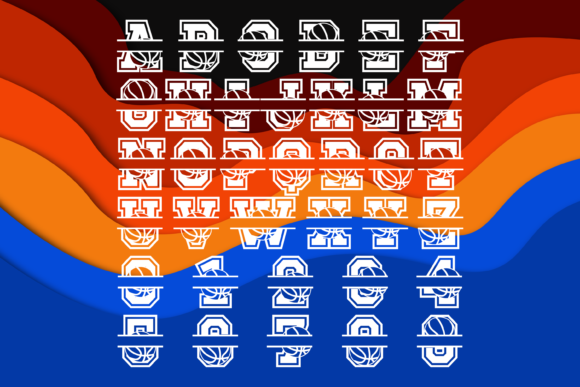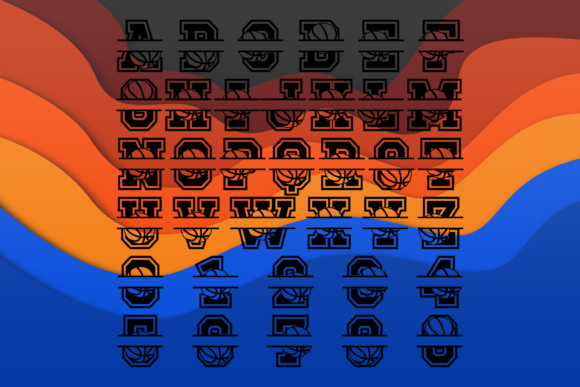
Dunk Font: Elevate Your Sports Designs with a Slam Dunk
Are you a designer or crafter looking for a font that packs a punch? Look no further than the Dunk font. This incredibly cool font is ideal for sports-related design ideas, and its simplicity combined with a strong visual effect makes it a game-changer for any creation.
The Power of Dunk Font
Dunk font is more than just a font – it’s a statement. Its bold and dynamic design instantly grabs attention, making it perfect for sports-themed designs, logos, and branding materials. Whether you’re working on a project for a sports team, a fitness brand, or an athletic event, Dunk font is sure to make your design stand out from the crowd.
What Makes Dunk Font So Special?
- Simple yet Impactful: Dunk font’s simplicity is its strength. The clean lines and bold shapes make it easy to read and understand, while the strong visual effect ensures it leaves a lasting impression.
- Sports-Themed Perfection: The Dunk font is specifically designed with sports in mind. Its energetic and dynamic feel makes it perfect for designs that require a bold and adventurous spirit.
- Versatile: Dunk font is not just limited to sports designs. Its bold and modern aesthetic makes it suitable for a wide range of applications, from posters and flyers to logos and branding materials.
- Easily Customizable: The Dunk font is highly versatile, allowing you to adjust its size, color, and style to fit your design needs.
How to Use Dunk Font in Your Designs
Using Dunk font in your designs is easy. Here are a few tips to get you started:
- Pair it with Other Fonts: Combine Dunk font with other fonts to create a unique and visually appealing design. Try pairing it with a clean sans-serif font for a contrasting look.
- Experiment with Colors: Dunk font looks great in bold and bright colors. Experiment with different color schemes to find the one that works best for your design.
- Play with Sizes: Dunk font’s bold design makes it perfect for headlines and titles. Experiment with different sizes to create visual hierarchy in your design.
Dunk font offers numerous benefits for designers and crafters, including:
- Time-Saving: With Dunk font, you can create professional-looking designs quickly and easily.
- Increased Creativity: Dunk font’s bold and dynamic design inspires creativity and experimentation.
- Consistency: Use Dunk font across multiple designs to create a consistent visual brand identity.